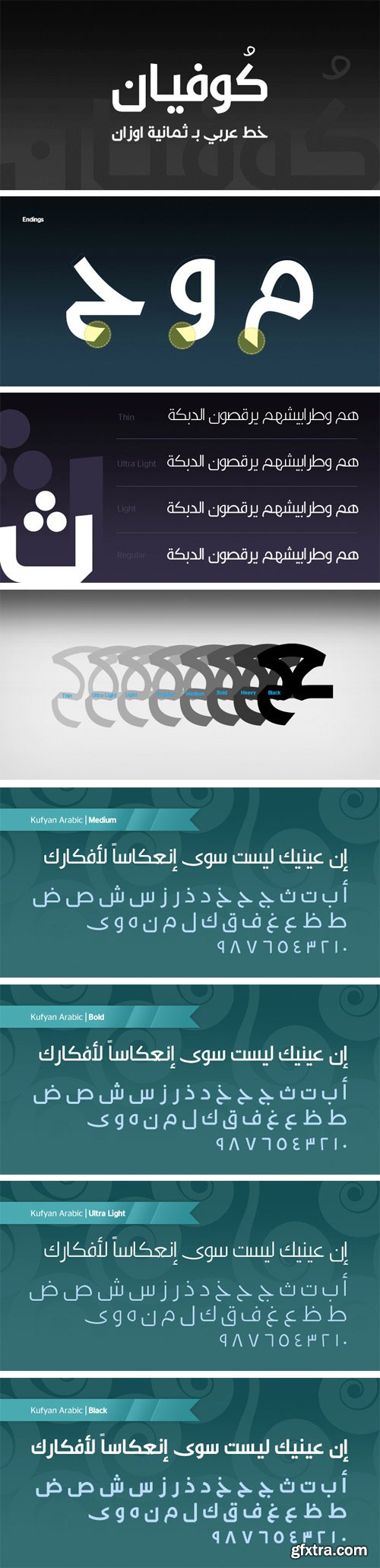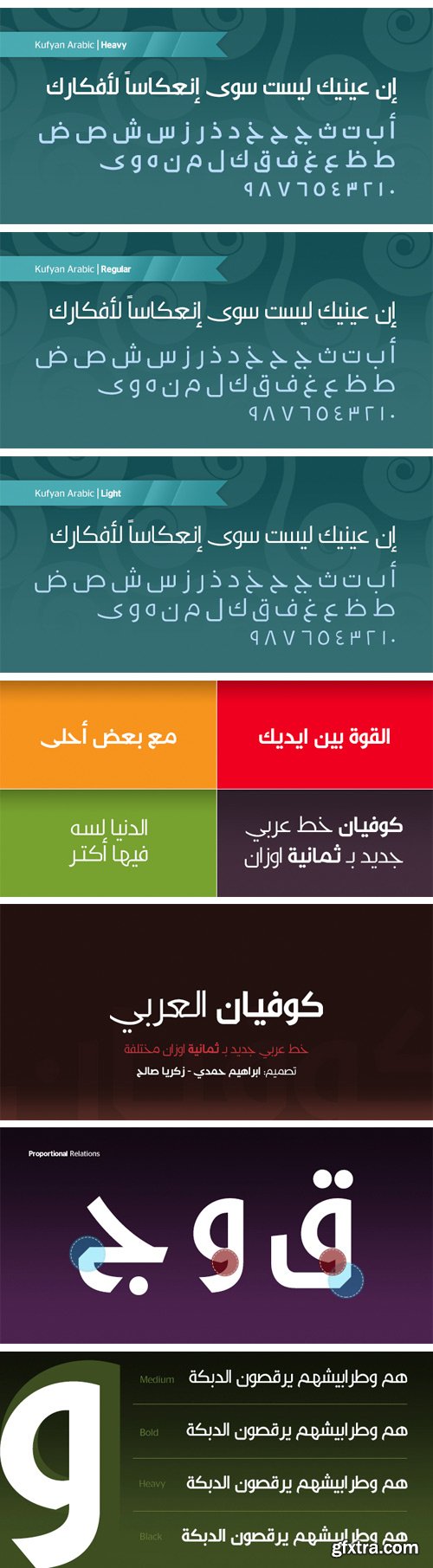
Kufyan Arabic
This font support Arabic, and Latin languages in compact and well constructed
typographic design. Designed by IBRAHIM HAMDI (Egypt)
& Zakariya Saleh(Palestine) Programmed by Abdullah Aref (Egypt)